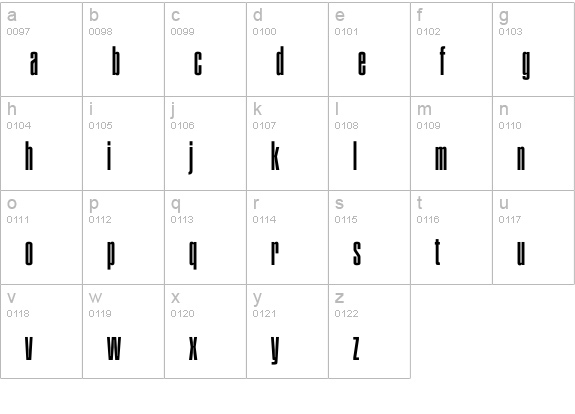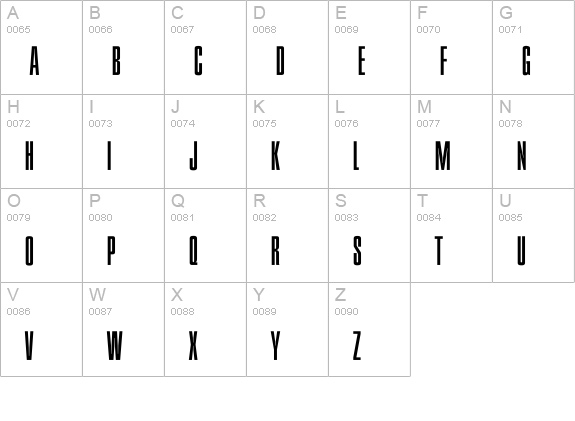
Plakat Light Font Details
Plakat Light is a refined, elegant variant in the Plakat typeface family \xE2\x80\x94 well suited to elegant body text, refined sub-headings, and luxury branding.
Plakat Light font is a modern and elegant typeface that exudes sophistication and charm. Its clean lines and minimalistic design make it a versatile choice for a wide range of projects. Whether you're designing a logo, creating a brand identity, or crafting a captivating headline, Plakat Light font will undoubtedly elevate your work to new heights. With its sleek and refined appearance, Plakat Light font effortlessly captures attention and leaves a lasting impression. Its slender letterforms are carefully crafted to ensure legibility and readability, making it perfect for both print and digital purposes. From posters and packaging to websites and advertisements, this font will make your content shine with its understated elegance. One of the most appealing aspects of Plakat Light font is that it is free to download at FontsMarket.com. This means that you can enhance your designs without breaking the bank. Whether you're a professional designer or a hobbyist, having access to high-quality fonts at no cost is truly a game-changer. FontsMarket.com offers a vast library of fonts, and Plakat Light font is just one of the many gems waiting to be discovered. Download Plakat Light font today and unleash your creativity. Its timeless design and effortless beauty will surely make a lasting impact on your audience. So why wait? Give your projects a touch of class and sophistication with this stunning font. Remember, the best things in life are free, and Plakat Light font is no exception. Visit FontsMarket.com now and elevate your design game with this incredible typeface.